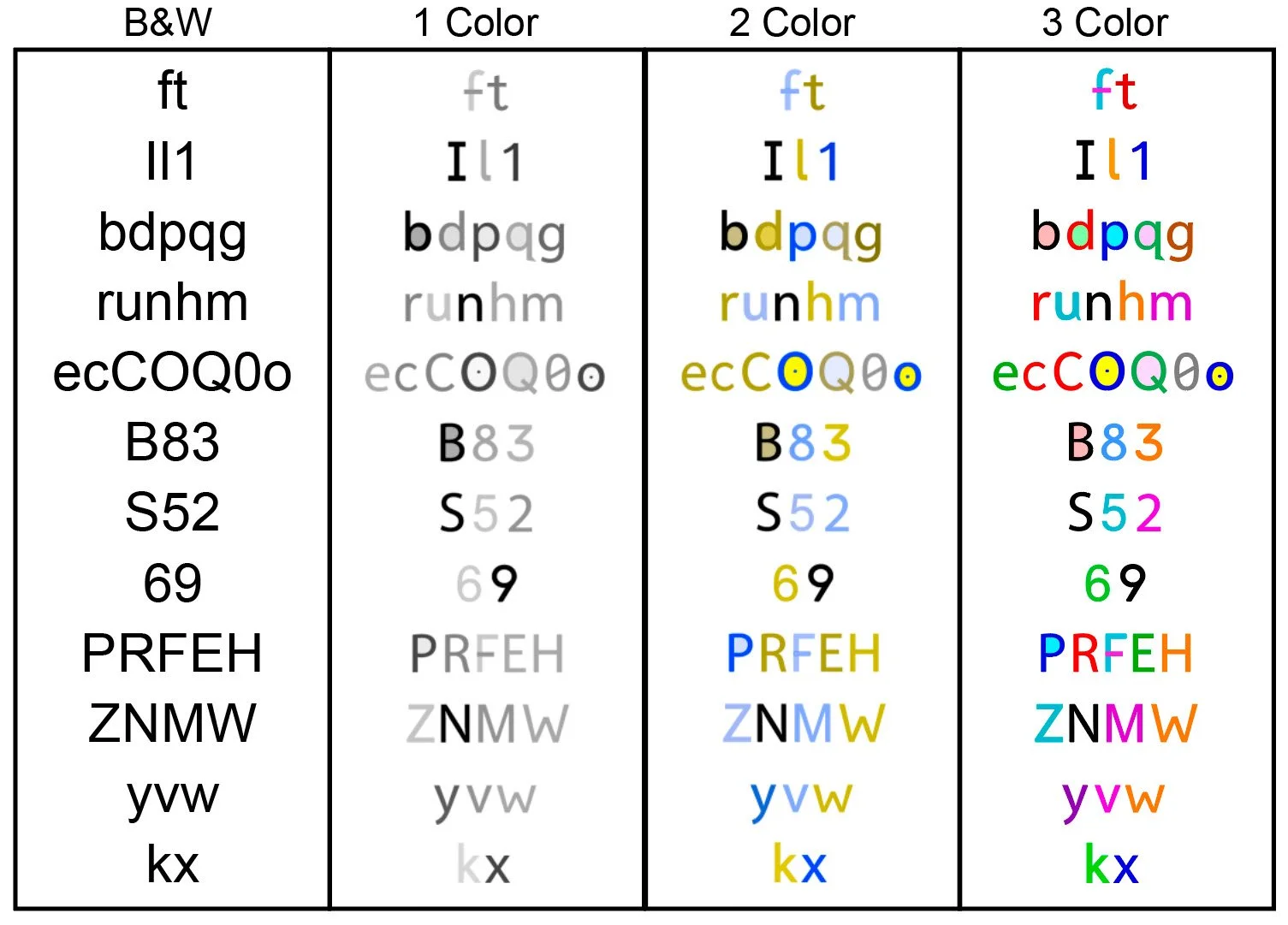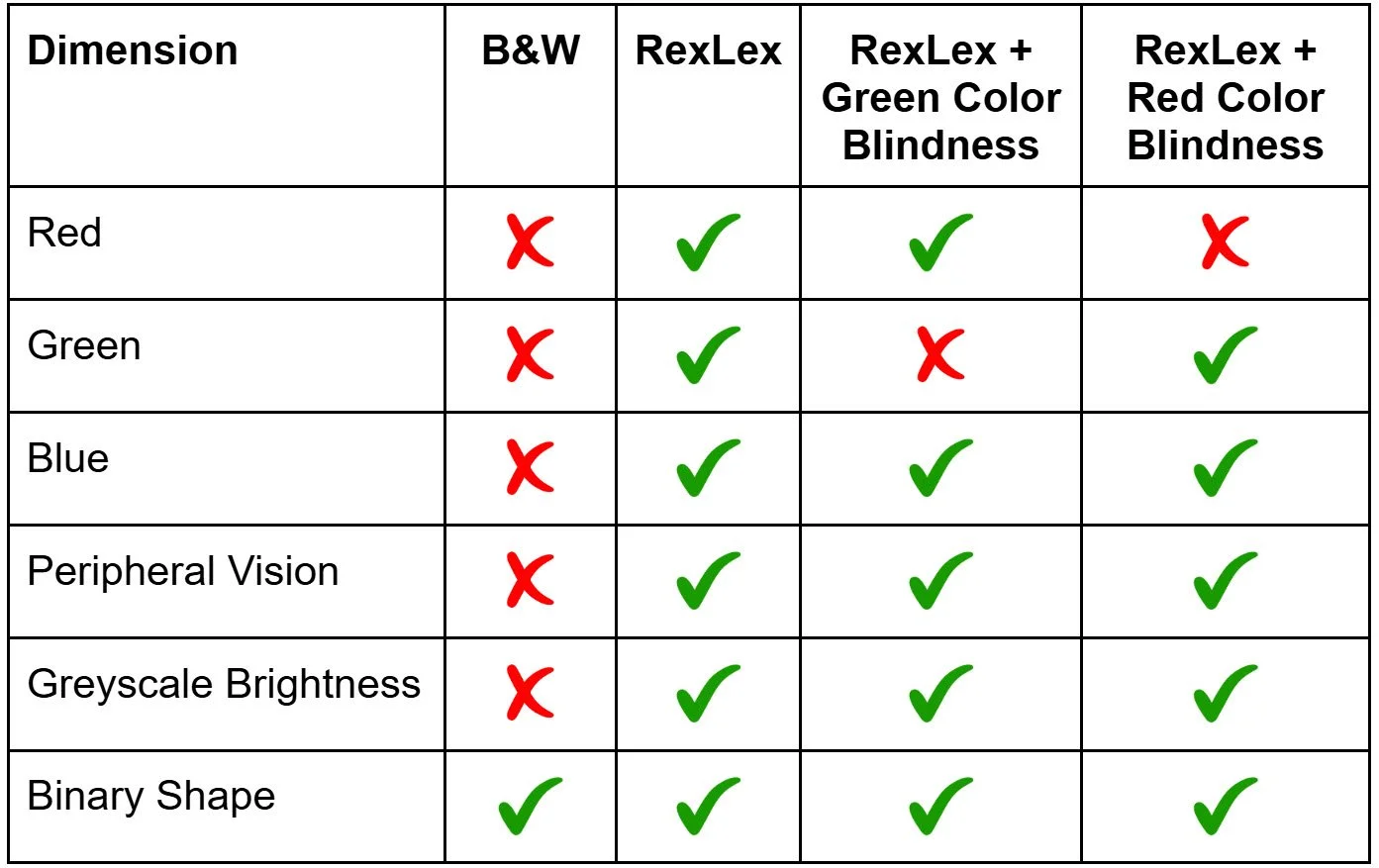
How does RexLex Work with Color Blindness?
The term color blindness almost never indicates a full lack of color. Virtually all people who are “color blind” are missing the ability to detect either red or green, thus collapsing them into one. The effect is similar to dividing things into warm lights and cool lights vs a full spectrum. Below this is simulated in the column labeled “2 Color”. RexLex has been carefully engineered to simultaneously maximize letter distinction for both 2 color and normal 3 color readers. The letters are most distinct using all 3 colors, but the separation with 2 colors is still vastly more than with B&W.
Rexlex is providing the brain with 5 additional dimensions of measurements. The colorblind are still being provided with 4 of 5: either red or green, blue, variable brightness, an entire array of peripheral sensors.